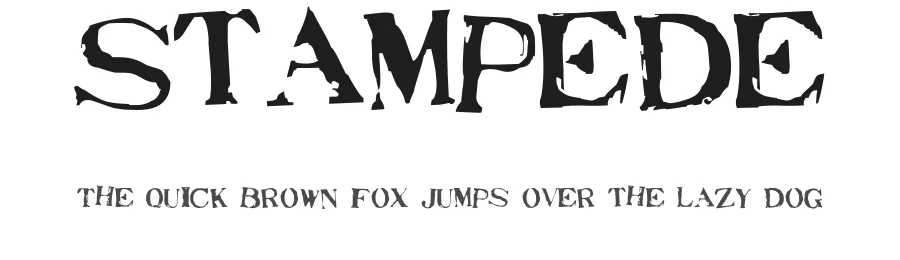
About Vires Gollem Font
Vires Gollem ships with 3 OpenType features you can switch on in apps that support them (Illustrator, InDesign, Affinity, Figma, CSS font-feature-settings).
Vires Gollem Font is a decorative font that shines as a display or heading face. Pair it with a clean sans-serif or serif font for body text β the contrast creates a clear hierarchy while the two styles stay balanced and easy to read.